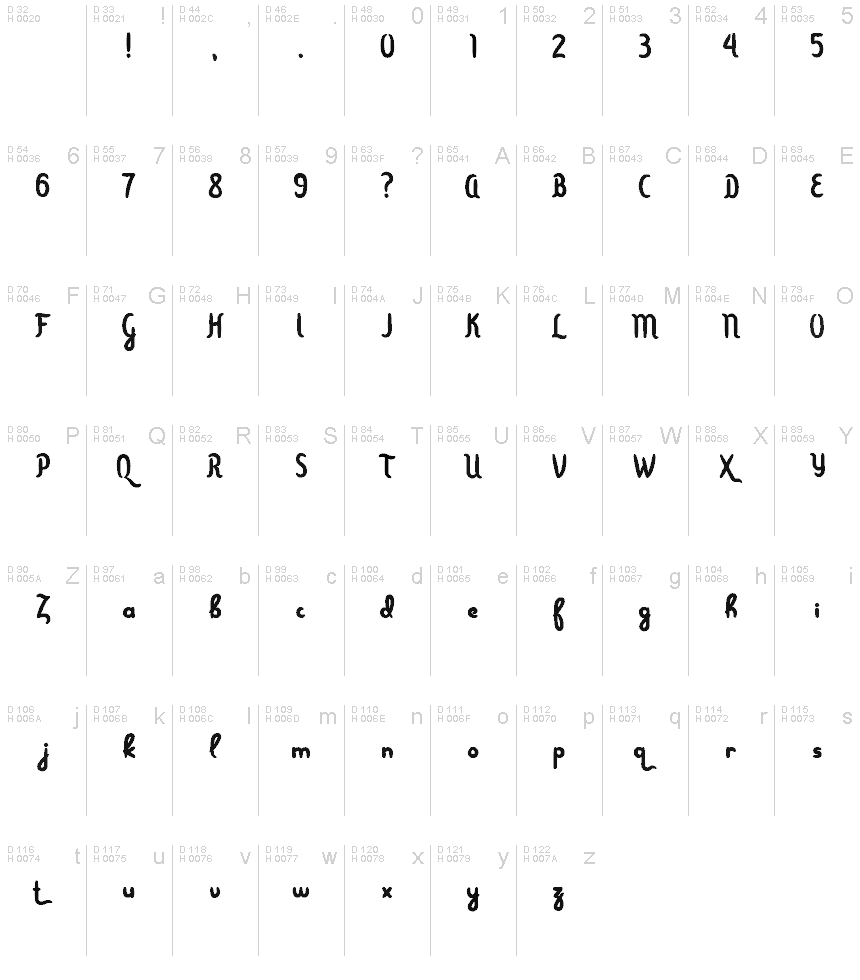
Menjelajah Halmahera
Menjelajah Halmahera, a captivating handwritten font designed by Adien Gunarta, exudes a captivating blend of elegance and vibrancy. This unique typeface showcases a striking balance of refined curves and dynamic strokes, evoking a sense of artistry and personal expression. Its organic, free-flowing aesthetic invites the reader to embark on a visually captivating journey, making it a compelling choice for projects that seek to convey a heartfelt, handcrafted atmosphere.
The versatility of Menjelajah Halmahera allows it to shine in a wide range of applications, from editorial layouts and branding materials to packaging designs and social media content. Its distinct personality can lend a touch of whimsical charm to greeting cards, invitations, and other personal communications, while its versatility also makes it a suitable option for crafting impactful headlines, titles, and logotypes that demand attention.
Halmahera is a beautiful island in Indonesia. This is one of two islands in Indonesia that look like the letter 'k'. Enjoy!